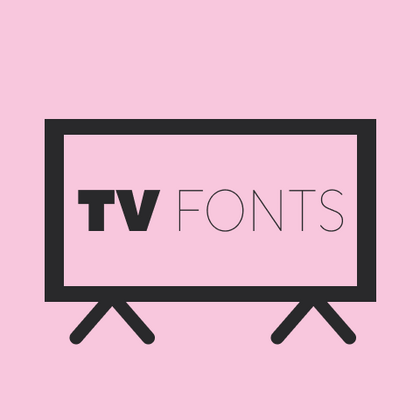
Television Fonts
Heightened contrast and perfectly balanced spacing distinguish TypeType’s TV fonts. These specialized typefaces are engineered for flawless display on television screens. The collection features both versatile grotesques for news tickers and striking display fonts for title sequences—all maintaining exceptional clarity even with dynamic scaling and broadcasting across SD/HD/UHD formats.
TT Odellia is an old-style serif with a modern design, inspired by Venetian typefaces and classical music.
TT Nooks Serif is a display modern serif with a slight touch of egocentricity. It has a sharp and firm, yet elegant and stately character.
TT Nooks Script features a unique design that has no direct analogs.
TT Dott is an experimental pixel grotesque where a circle is used as the base for the pixel. It is a fluid and unusual display font, evoking associations with embroidery and techno parties all at once.
TT Bells combines the elegant softness of Antiqua with a complex and daring temper reflected in straight stroke terminals and arrowheaded serifs. The typeface is based on the broad nib, which creates these hallmark terminals and serifs.
TT FRANTZ IS AN EXPERIMENTAL VARIABLE FONT, DISTINGUISHED BY ITS SLIMNESS AND LIGHTNESS. THE VARIATION IN THE FONT AFFECTS THE CHANGE IN THE HEIGHT OF THE MEAN LINE—BY MOVING THE AXIS ADJUSTMENT SLIDER YOU CAN EASILY RAISE OR LOWER THE MEAN LINE OF THE FONT.
TT Quaris is an exquisite, modern high-contrast sans whose design balances between soft and sharp. The glyph shapes in the font are fluid and tend towards roundness, yet there are also sharp elements.
TT Ricordi Allegria is a sleek and intelligent contemporary Florentine grotesque.
TT Bakers is a fluid serif with a gentle and lively character. This font is like freshly baked goods: it`s warm and soft, especially in its bolder weights.
TT Modernoir is a display sans serif with dynamic proportions. Fluid lines and delicate Art Nouveau forms in this typeface blend seamlessly with the rhythmic flow and improvisational freedom of jazz.
TT Moons is a slim and contrast serif. This font family works especially smart in classic design themes. TT Moons is a typeface of the glyptal modern typeface.